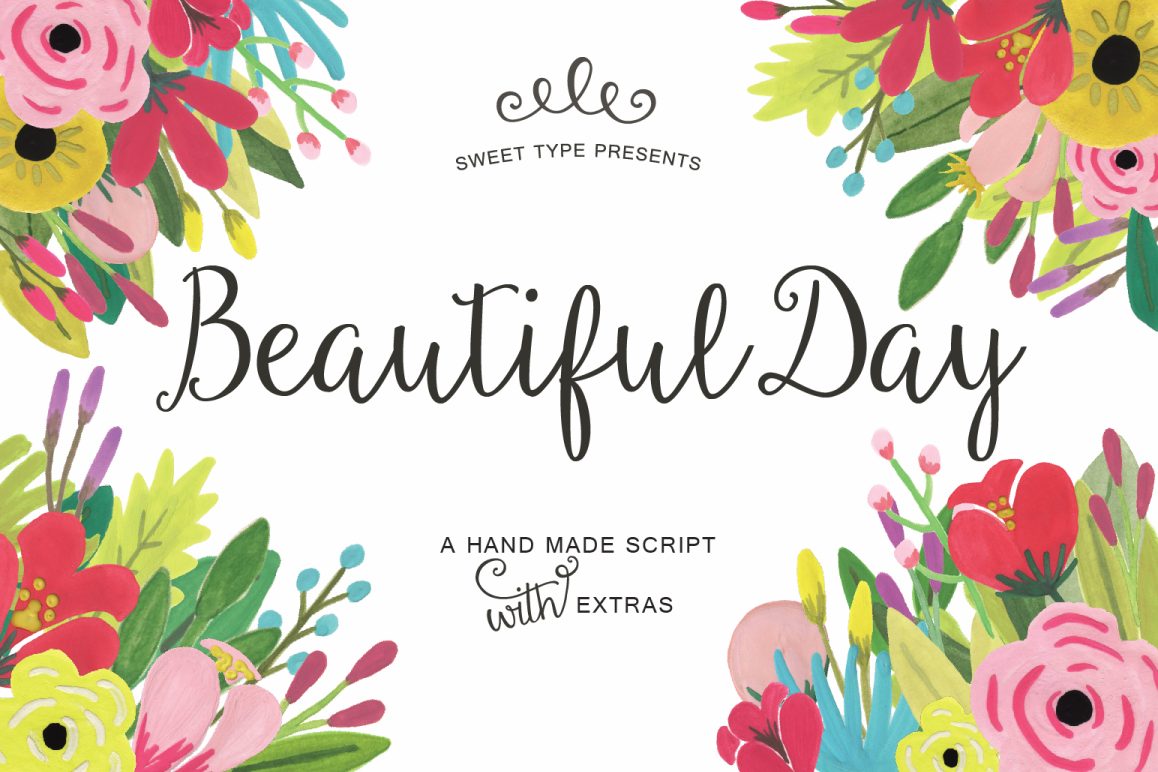
Beautiful Day + Ornaments
Beautiful Day
Beautiful Day Ornaments
Sweet, feminine script. Perfect for wedding, stationery and logos
Including hand drawn characters for a range of languages and dialects.
BONUS FREE an entire ornament file of catchword, doodles, and swirls!